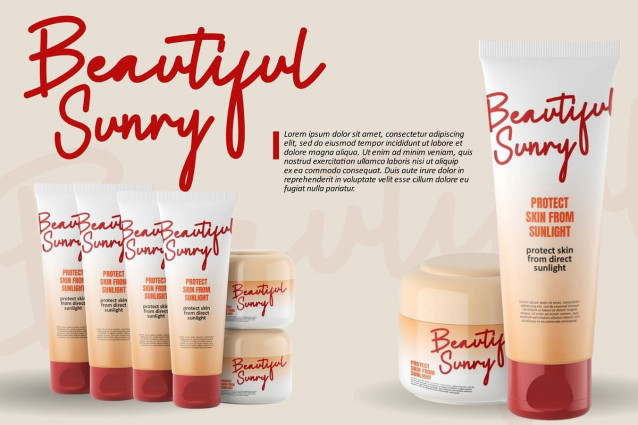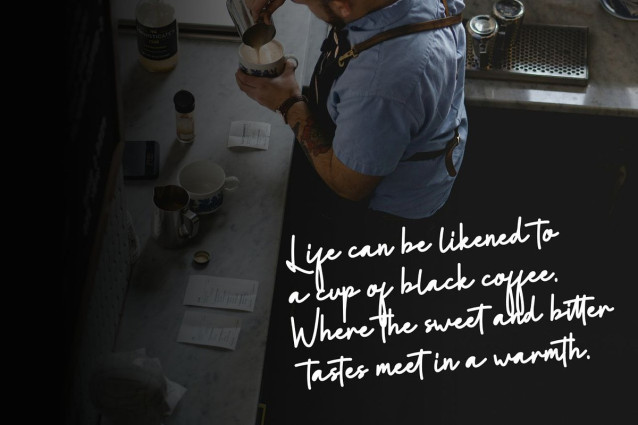
Renubela Signature Font
Renubela Signature Font is a font created using a bold marker with bold curves. And given a little hand carving that resembles human writing, a signature version. This font is perfect for use on cosmetic brands, web titles, food products, commercial posters, shopfront carvings, book covers, movie titles, and more…